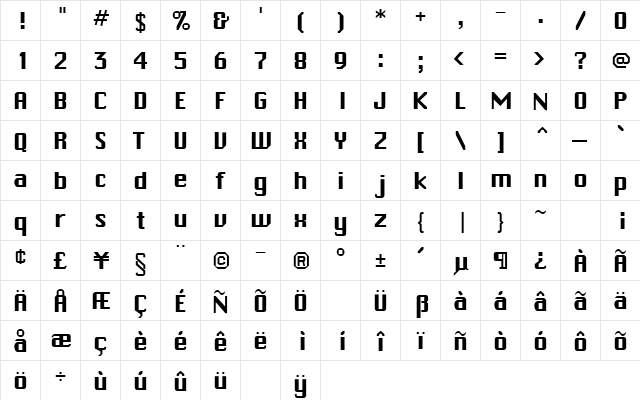
ChiTown Regular
Design Context for ChiTown Typeface
ChiTown offers clean, dependable letterforms without strong stylistic allegiance, making it a practical choice for designers who need flexibility.
Pro Tip: Use ChiTown in both headline and body roles to test its range before committing to a single application.